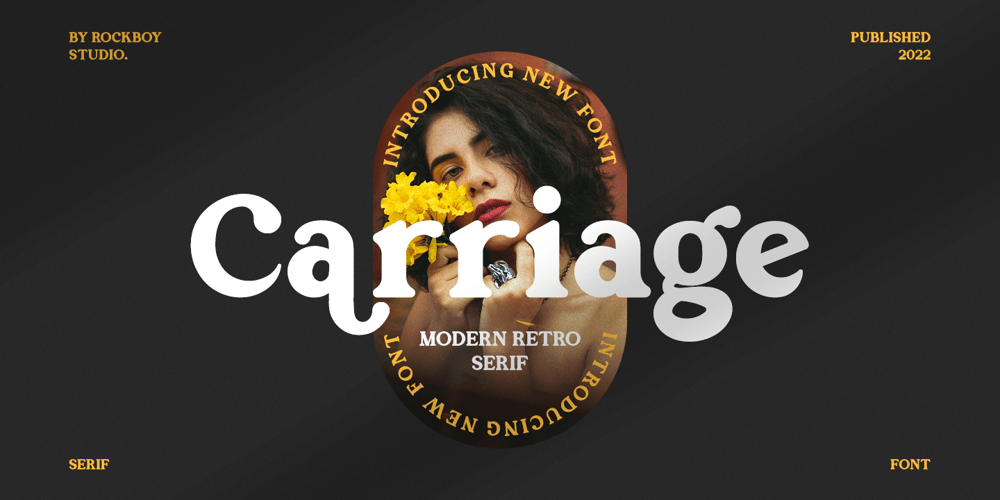
Carriage Font Family was designed by Hayinah and published by Rockboys Studio. Carriage contains 1 styles and family package options. Carriage is an elegant and distinct serif font perfect for a wide variety of designs due to its neat and simple style. Carriage has the potential to become your favorite go-to font, no matter the occasion!